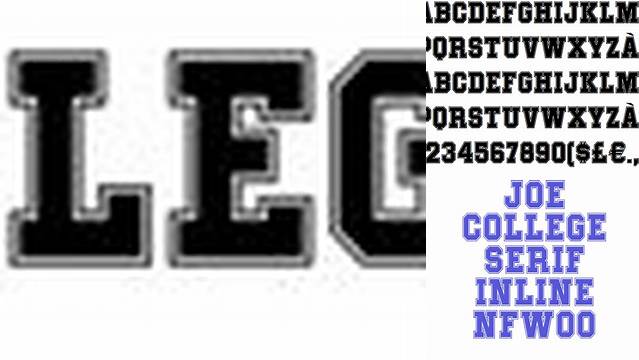
Hey guys! Are you on the hunt for that perfect font to give your designs a classic, collegiate vibe? Look no further! The Joe College Serif Inline Font is exactly what you need. In this guide, we’ll dive deep into everything you need to know about this font, where to find it for free, and how to use it effectively in your projects.
What is Joe College Serif Inline Font?
So, what exactly is the Joe College Serif Inline Font? It's a typeface that screams vintage academia. Think old-school yearbooks, classic sports jerseys, and traditional university emblems. The inline design—those stylish lines running within the letterforms—gives it a distinctive, eye-catching look. This font is perfect for adding a touch of nostalgia and sophistication to any design project. Whether you're working on branding, posters, or even just spicing up your social media graphics, Joe College Serif Inline can bring that timeless appeal.
Features and Characteristics
Let's break down what makes this font so special. First off, it's a serif font, meaning it has those little decorative strokes at the end of the letters. These serifs contribute to its traditional and formal appearance. The inline feature, as mentioned, adds a unique twist, making it stand out from regular serif fonts. This design element gives the font a sense of depth and intricacy, perfect for headlines and titles. The overall impression is one of strong, confident typography that demands attention without being overly flashy. It’s legible, versatile, and can adapt to various design styles, making it a valuable addition to any designer's toolkit.
Historical Context
To truly appreciate the Joe College Serif Inline Font, it helps to understand its historical context. Fonts like these gained popularity in the early to mid-20th century, often used in collegiate settings to represent institutions and teams. The style evokes a sense of history and tradition, reminding us of a time when craftsmanship and attention to detail were highly valued. Using this font in your designs can tap into that historical feeling, adding a layer of meaning and resonance that contemporary fonts might not provide. Think of it as a visual shorthand for quality and heritage.
Why Use Joe College Serif Inline Font?
Why should you even bother with the Joe College Serif Inline Font? Well, there are plenty of good reasons! It's all about the impact you want to make with your designs. This font is particularly effective when you want to convey a sense of tradition, authority, or classic style. It's great for projects that need a touch of vintage charm or a nod to academic excellence. Plus, it’s just plain cool! The unique inline design sets it apart from more generic serif fonts, giving your work a distinctive edge.
Branding and Logo Design
When it comes to branding, the Joe College Serif Inline Font can be a game-changer. Imagine using it for a law firm logo, a high-end whiskey brand, or even a boutique coffee shop. Its classic, authoritative look can instantly communicate trust and quality. The inline detail adds a touch of sophistication that makes your brand stand out. It’s also versatile enough to pair with more modern fonts in your overall branding strategy, creating a balanced and visually appealing identity. A well-designed logo using this font can leave a lasting impression, making your brand memorable and recognizable.
Print Materials: Posters, Flyers, and Invitations
For print materials, the Joe College Serif Inline Font really shines. Think about designing a poster for a vintage-themed event or creating elegant invitations for a formal gathering. This font adds a level of refinement that’s hard to beat. Its legibility ensures that your message is clear and easy to read, while its unique style grabs attention. Whether you're promoting a concert, announcing a wedding, or advertising a product, this font can help you create visually stunning and effective print materials.
Digital Design: Websites and Social Media
Don't think this font is just for print! The Joe College Serif Inline Font can also be used effectively in digital design. Use it for headings on your website to create a strong, memorable impression. Incorporate it into your social media graphics to add a touch of elegance and sophistication. Just be mindful of readability on smaller screens and ensure it pairs well with your overall digital aesthetic. When used strategically, this font can elevate your online presence and make your content more engaging.